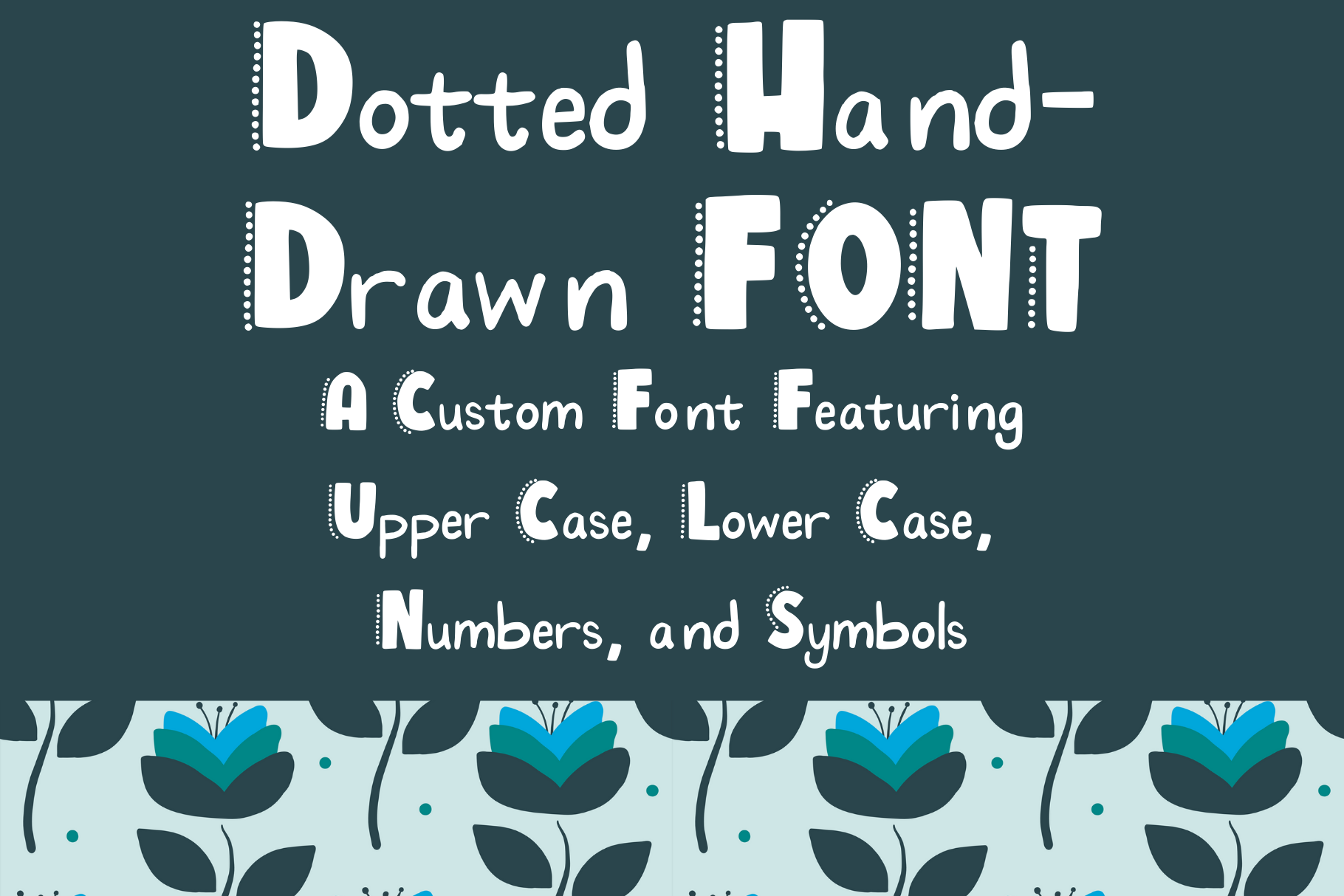
Dotted Hand-Drawn Font
Dotted Hand-Drawn Font - perfect for invitations, mockups, tshirt designs, social media posts, and so much fun. Featuring fun dots on all the capitalized letters and a playful lower case font, these letters serve a variety of purposes. Includes upper case, lower case, numbers, and symbols.